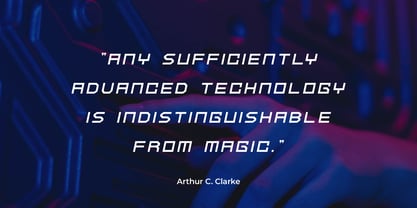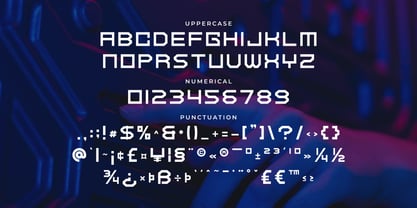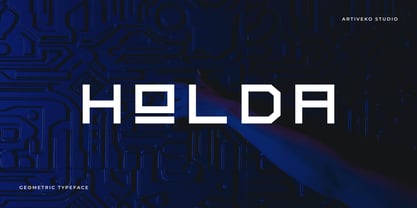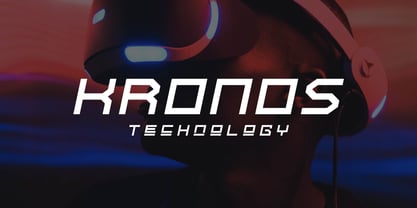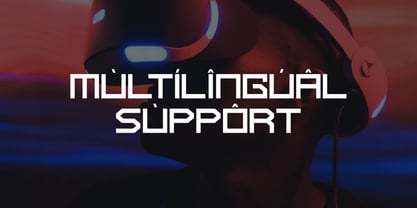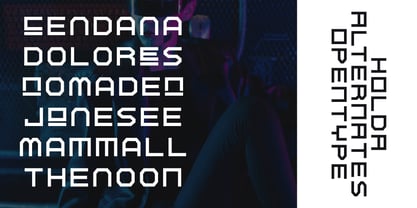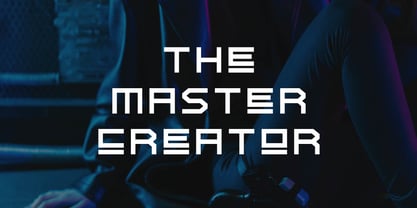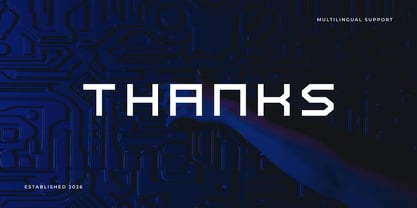
Holda
by Artiveko
The Holda Font Family was designed by Iwan Alwan and published by Artiveko. Holda contains 2 styles and family package options. More about this family
Holda is a geometric technology typeface crafted for the next generation of digital innovation. With its precise geometric construction, clean lines, and contemporary proportions, Holda embodies a modern aesthetic that signifies intelligence, performance, and technological advancement. Designed specifically for technology startups, AI platforms, SaaS products, fintech companies, UI/UX systems, gaming brands, and digital interfaces, Holda ensures exceptional readability while maintaining a unique futuristic identity. Its balanced geometry makes it an excellent choice for logos, websites, dashboards, mobile applications, presentations, and impactful display headlines. Whether you are creating a cutting-edge brand identity or developing advanced digital experiences, Holda offers the perfect blend of minimalism, precision, and innovation. Holda is not just a typeface—it's engineered to define the visual identity of tomorrow's technology.
Designers: Iwan Alwan
Foundry: Artiveko
Artiveko is a font design team based in Indonesia, comprised of several talented font designers who commenced their careers in the font design industry in 2020. With a dedicated focus on crafting fonts, the team members bring their collective expertise and passion to every project they undertake. Situated in Indonesia, Artiveko draws inspiration from the vibrant cultural landscape of the region, infusing their creations with unique flavors and aesthetics.The team's font collection encompasses a diverse range of styles, including serif, sans serif, handwritten, and script typefaces. Each typeface is meticulously crafted to meet the demands of modern design while offering versatility and functionality across various applications. Whether it's the classic elegance of serif fonts, the contemporary appeal of sans serif designs, the personal touch of handwritten scripts, or the expressive flourishes of script fonts, Artiveko ensures that every font reflects their dedication to quality and innovation.Artiveko's fonts have garnered recognition and acclaim, with their works being featured on prominent social media platforms like Creative Market. Through these platforms, the team has been able to connect with a global audience of designers and typographers, further amplifying their reach and influence in the industry. Their fonts are celebrated for their impeccable craftsmanship, attention to detail, and ability to elevate design projects with style and sophistication.As Artiveko continues to evolve and expand its font collection, the team remains committed to pushing the boundaries of typography and setting new standards of excellence. With a relentless focus on creativity, innovation, and collaboration, Artiveko strives to inspire and empower designers around the world with their distinctive and versatile font designs.